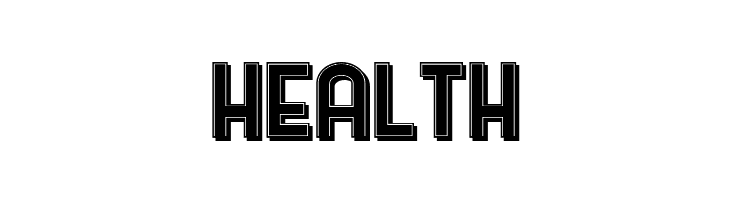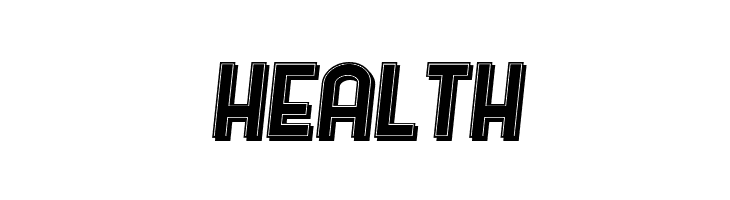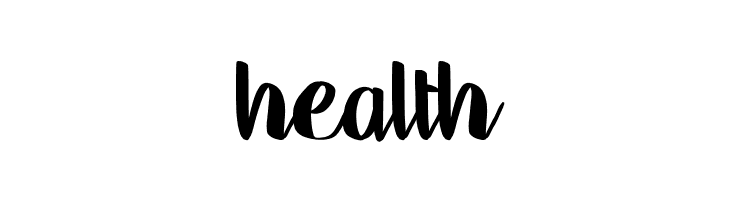
A fluid, handwritten script font with elegant, connected letters.
Bold, italicized font with outlined, three-dimensional characters.
A bold, geometric font with outlined characters and a modern flair.
A bold, flowing script font with decorative flourishes and cohesive design.
A flowing cursive font with a handwritten, elegant style.
A dynamic handwritten font with expressive, flowing letterforms.
A fluid, cursive script font with elegant, connected letters.
A graceful script font with flowing, connected strokes and elegant curves.
A fluid and elegant script font with smooth, flowing lines and cursive letterforms.